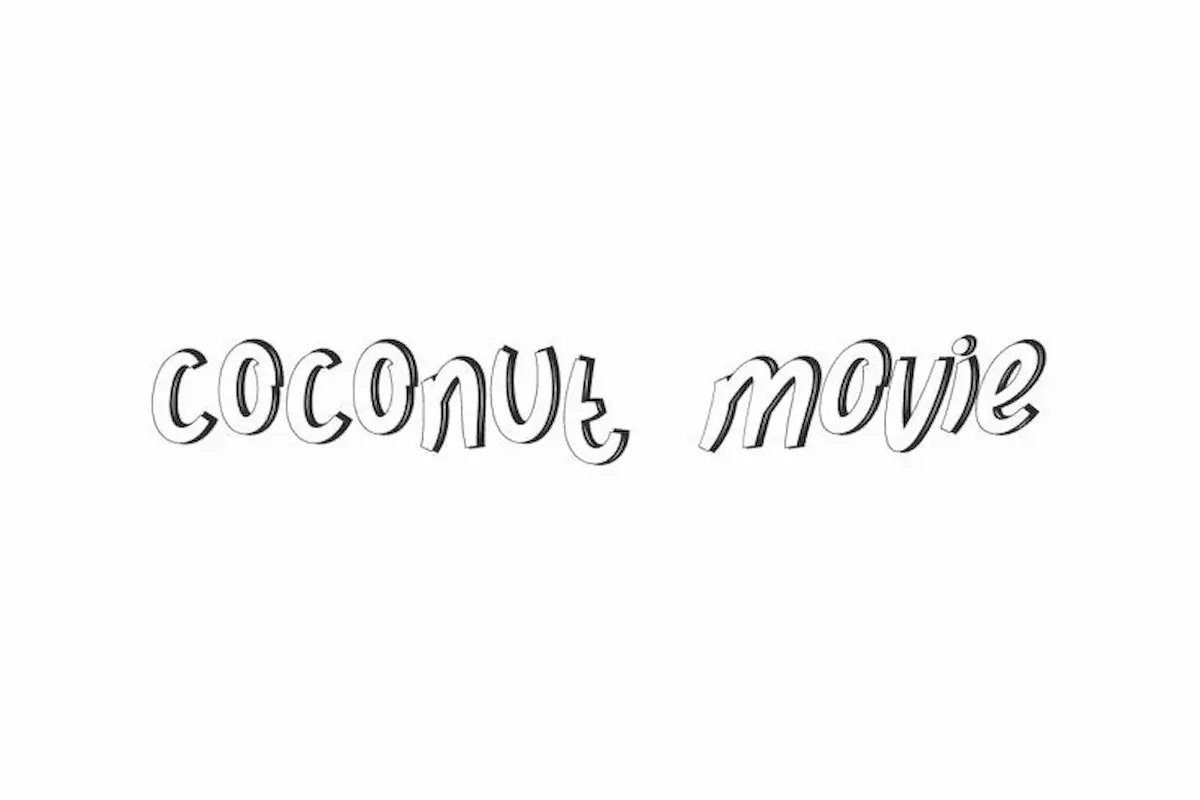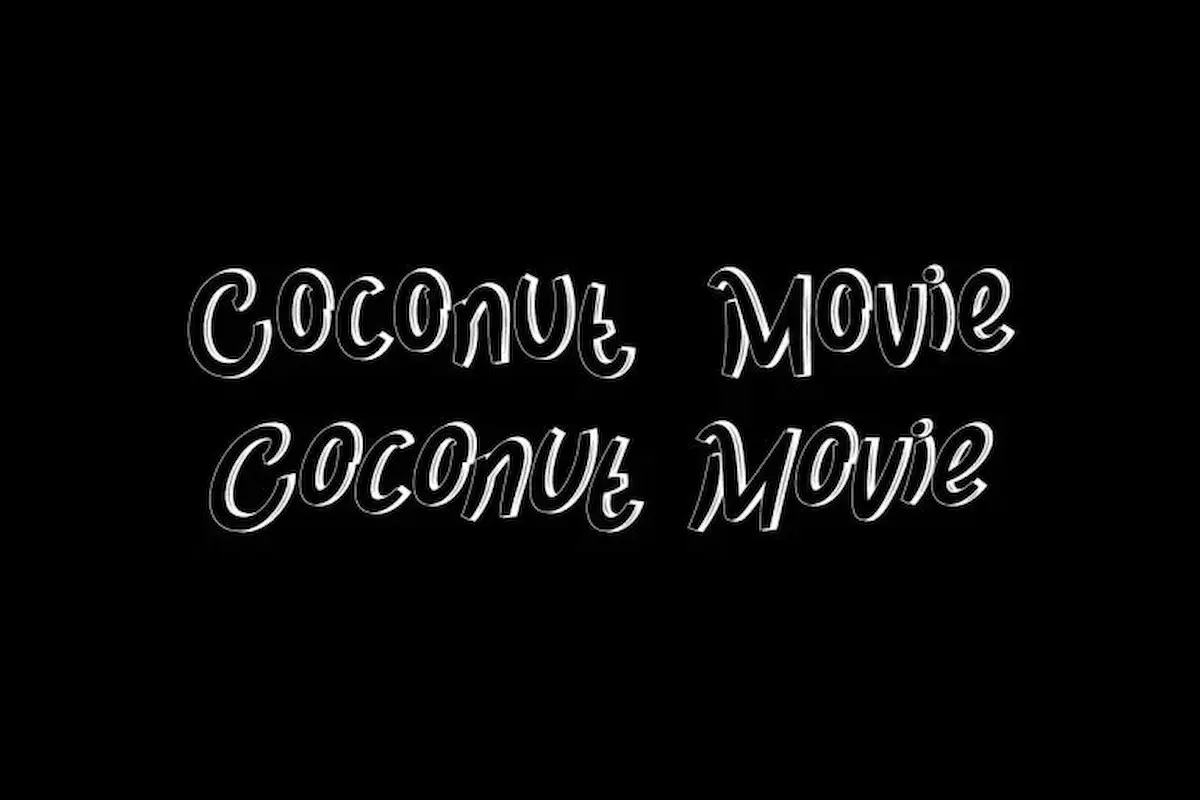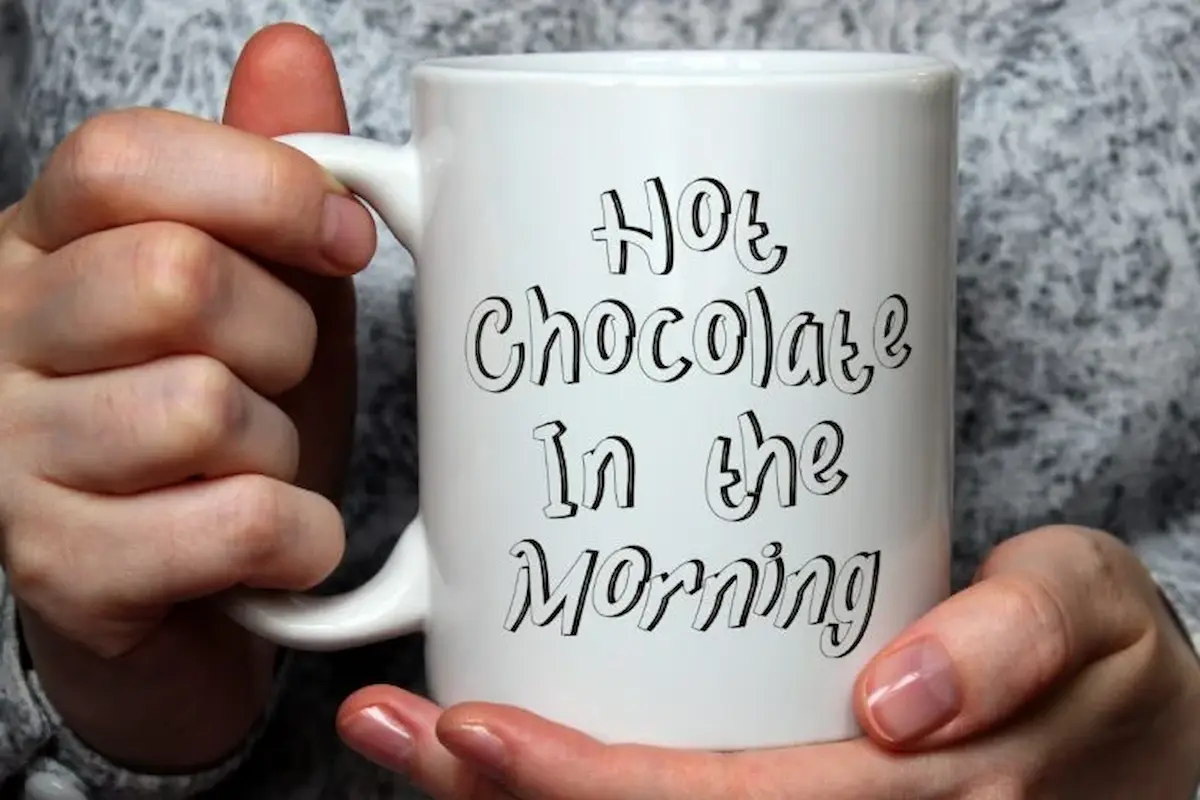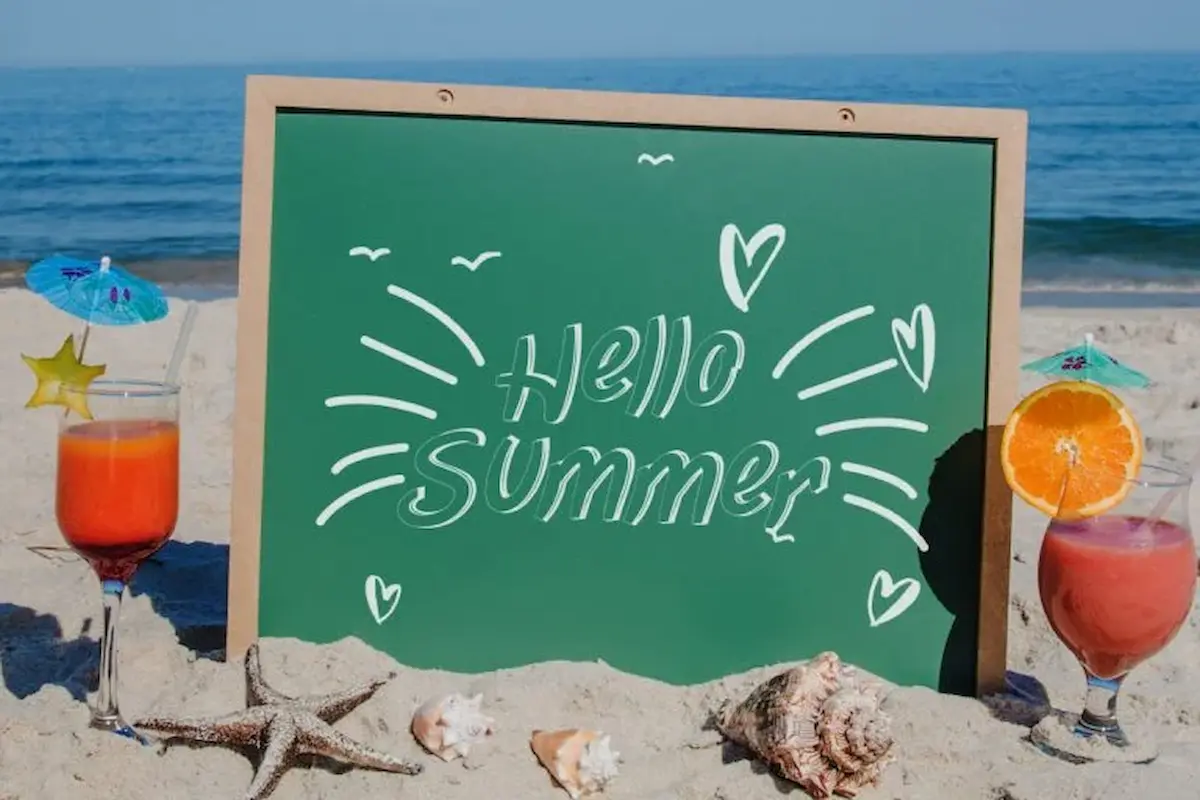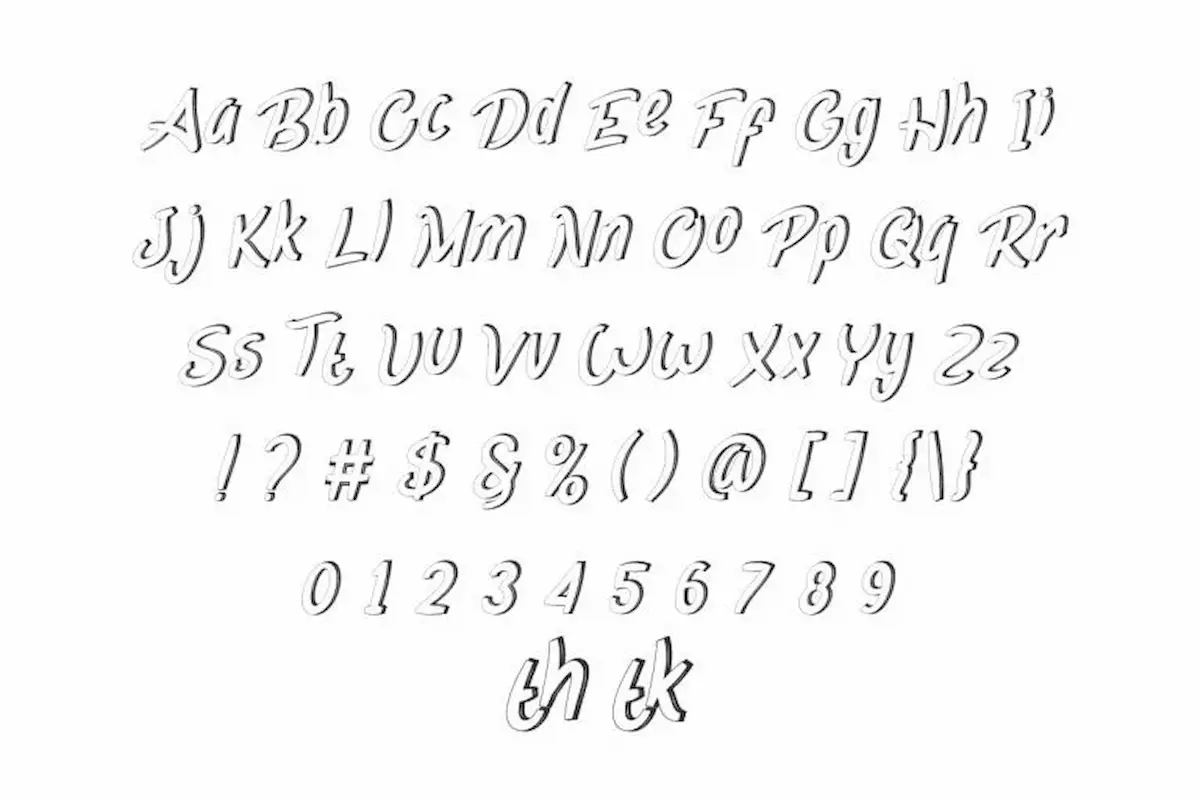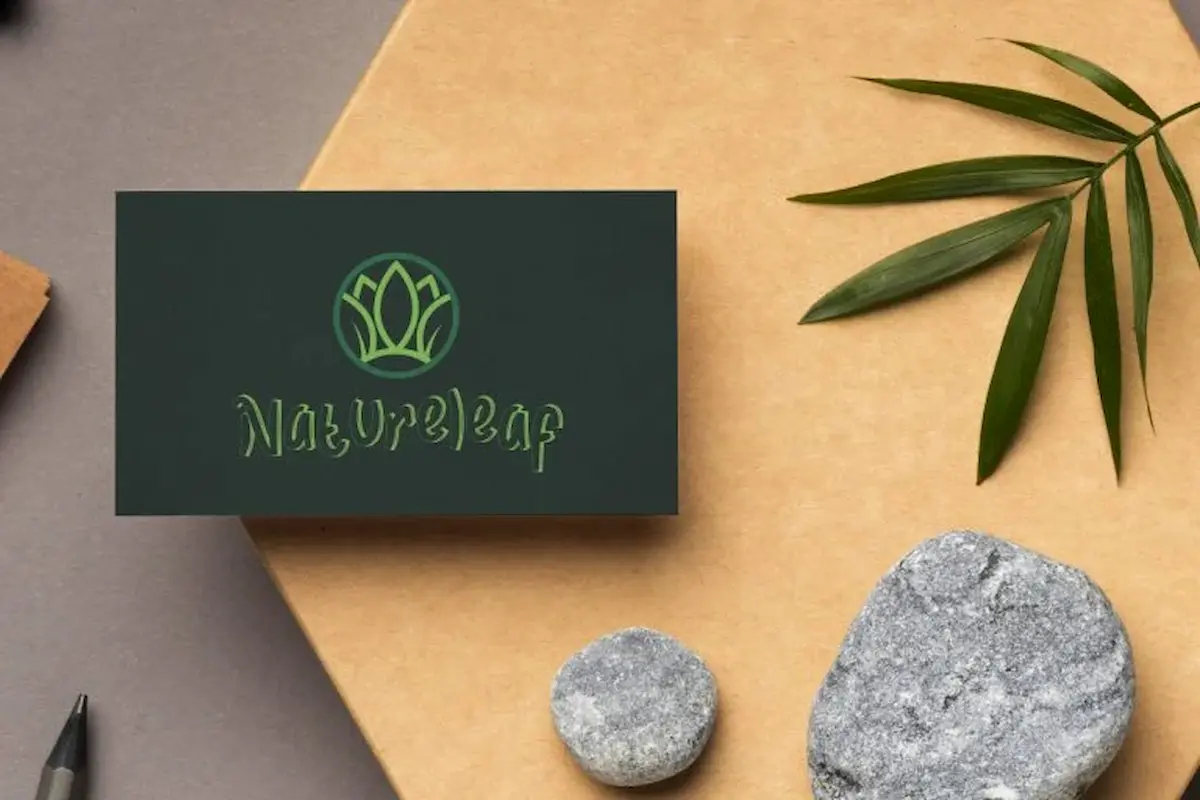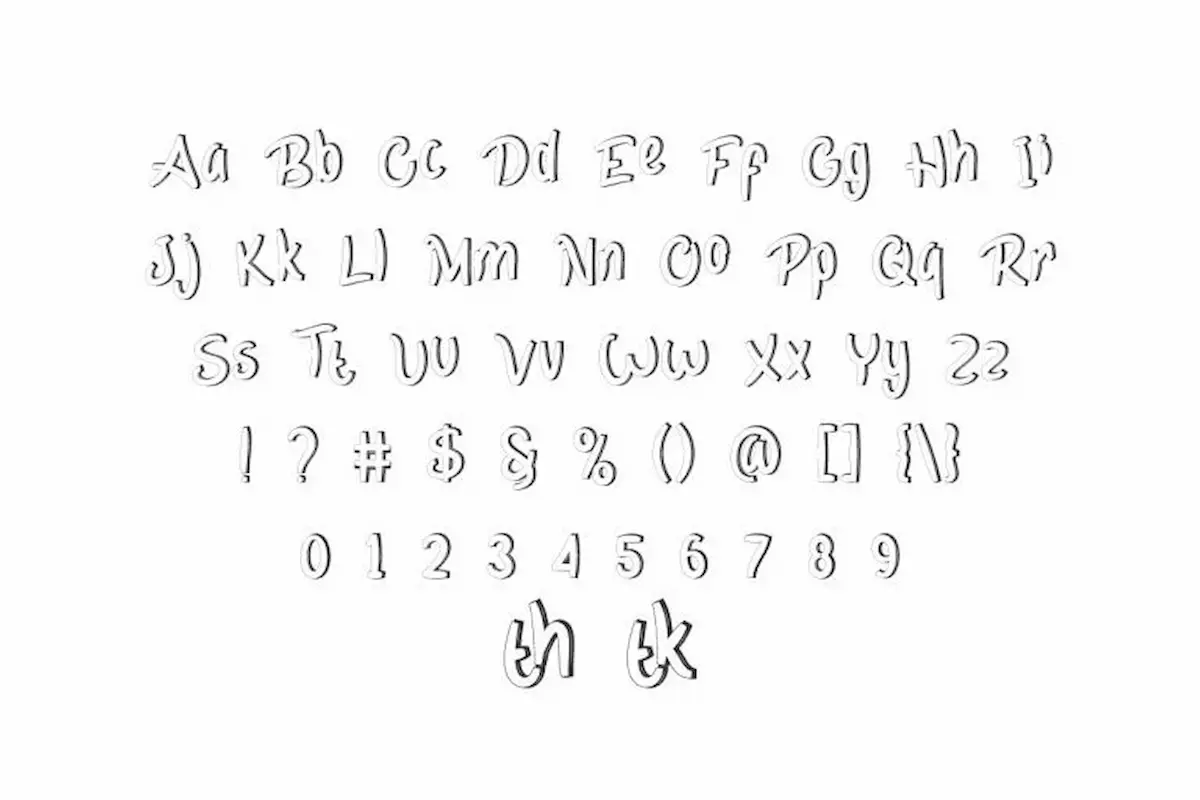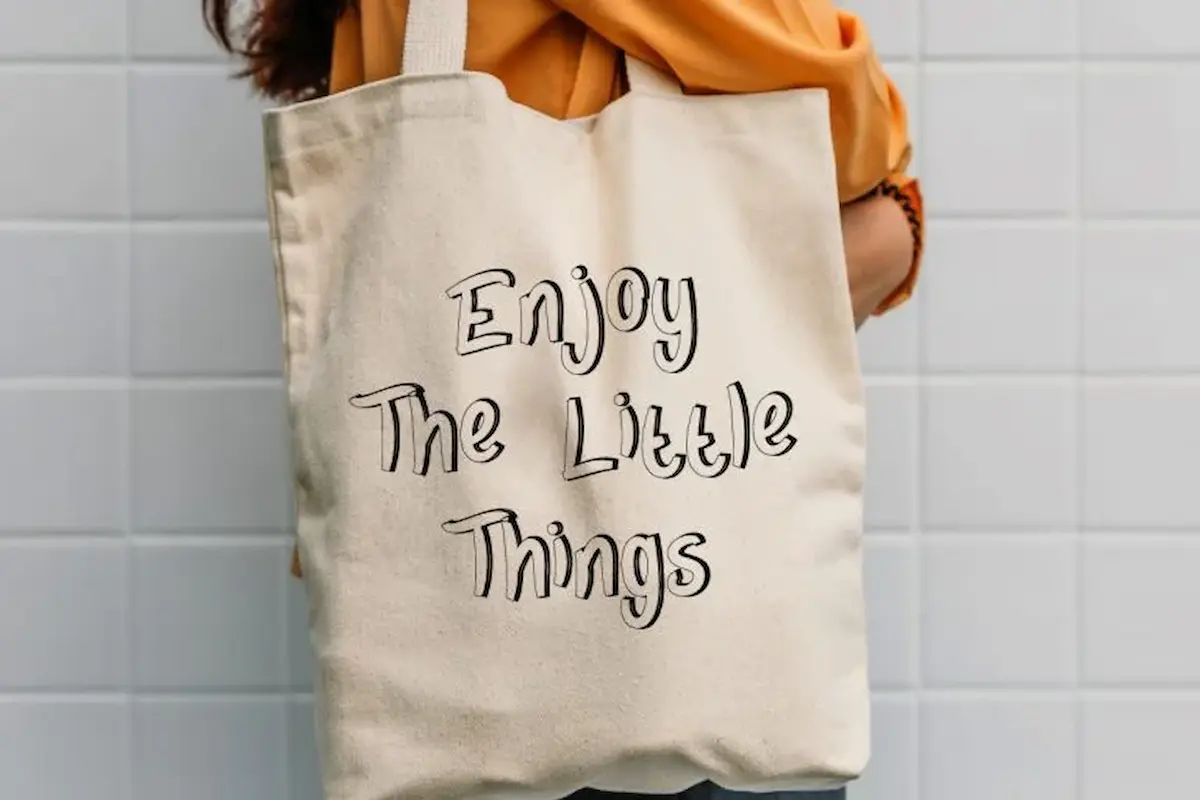
Coconut Movie Font is a comic display font with cartoon and kids related theme. The font is exclusively designed by NihStudio, made in 2021. The Font will great for comic, kids product, education, school etc
Coconut Movie Font is a playful cartoon handwriting font with a charming doodle-style design. Perfect for adding personality, creativity, and warmth to your projects, this hand-drawn display typeface is loved by designers, illustrators, and creatives worldwide.
This cartoon handwriting display font is ideal for:
Branding & logo design
Product packaging & merchandise
Stationery & business cards
Posters, flyers, and brochures
Social media graphics & invitations
Popular in industries such as children’s books, comics, schools, restaurants, cafes, entertainment, and music.
A well-spaced, beautifully kerned character set
If you need a fun, versatile doodle-style cartoon font with a handwritten touch, this typeface will give your work a unique and memorable look.